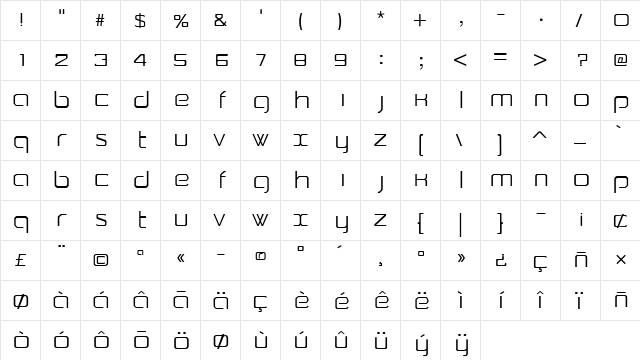
Camomile Regular
Design Context for Camomile Typeface
Camomile offers clean, dependable letterforms without strong stylistic allegiance, making it a practical choice for designers who need flexibility.
Pro Tip: Use Camomile in both headline and body roles to test its range before committing to a single application.